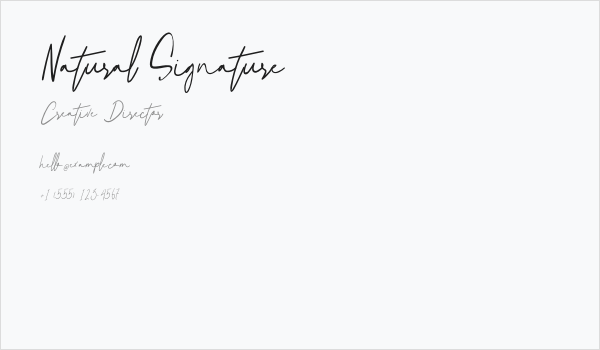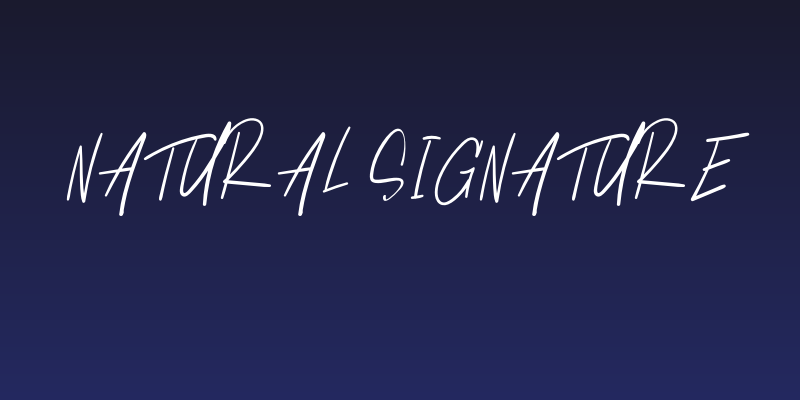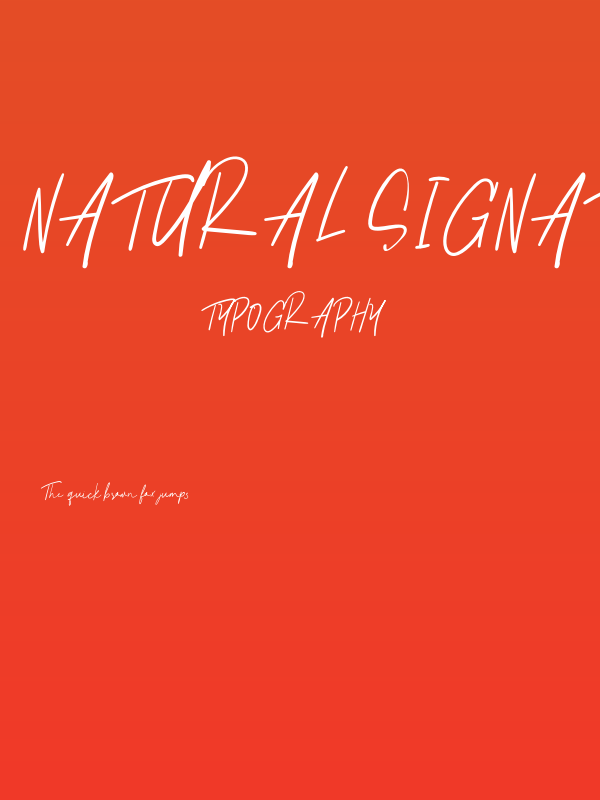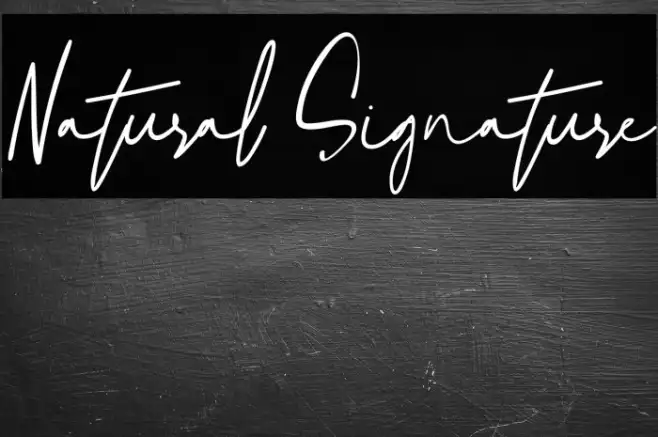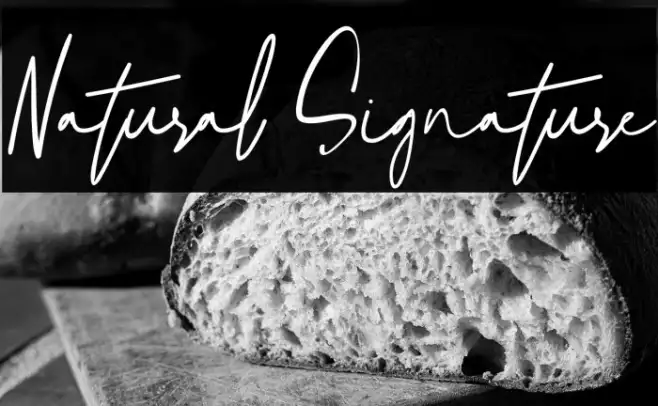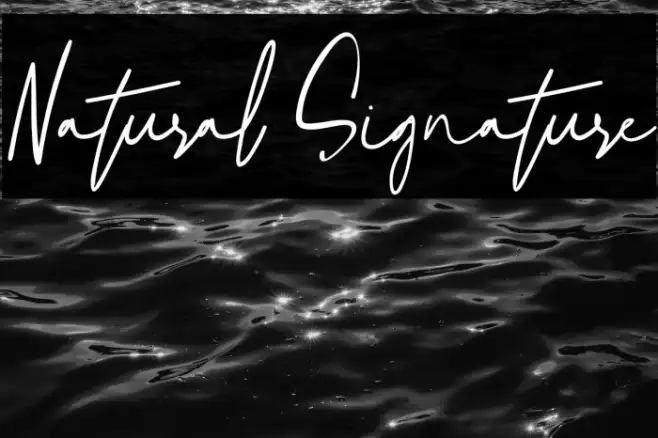
Natural Signature Font
Natural Signature Description
This font exudes a natural, handwritten style, reminiscent of a personal signature. The characters are fluid and connected, with a slight slant that adds to the casual and personal feel. The uppercase letters are bold and confident, while the lowercase letters maintain a consistent flow, enhancing readability. The numbers and special characters follow the same elegant and freeform style, making them versatile for various uses. The overall appearance is both sophisticated and approachable, making it suitable for projects that require a personal touch.